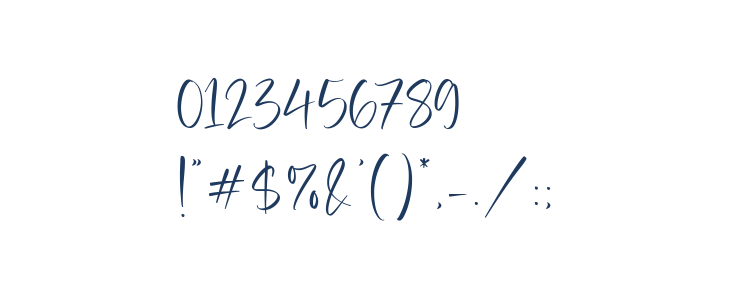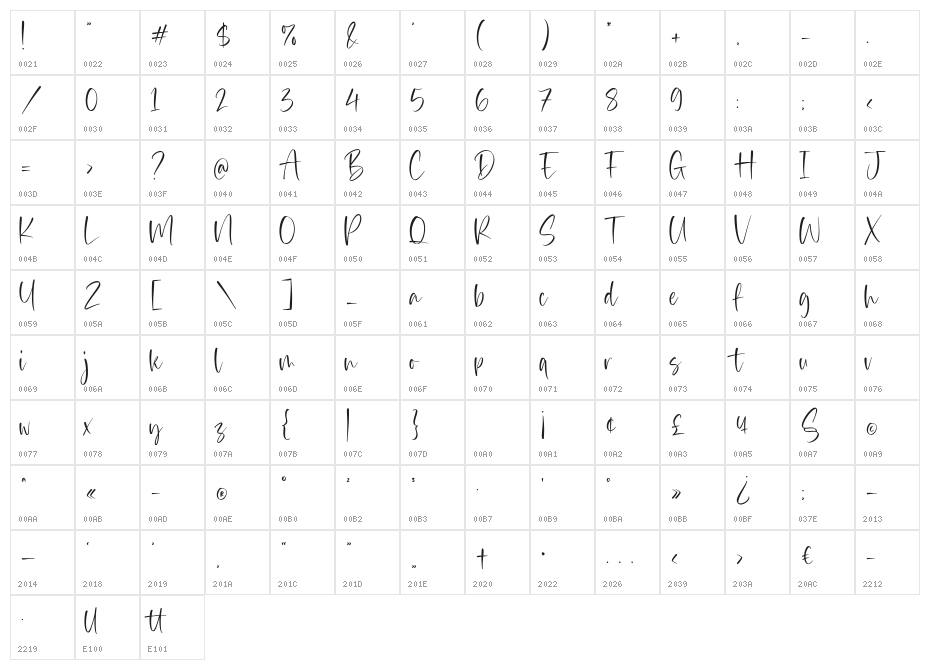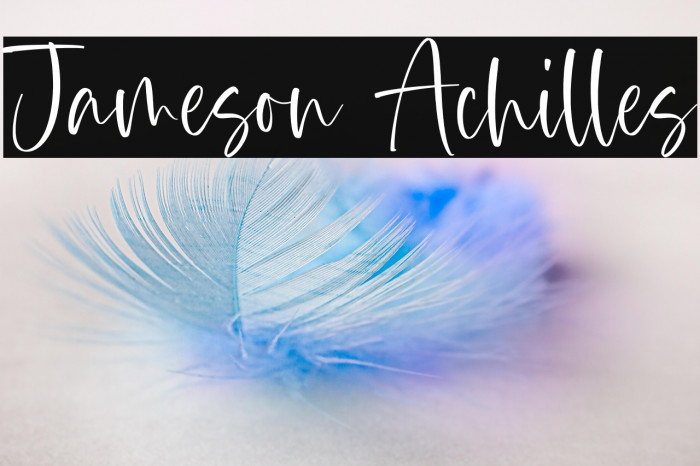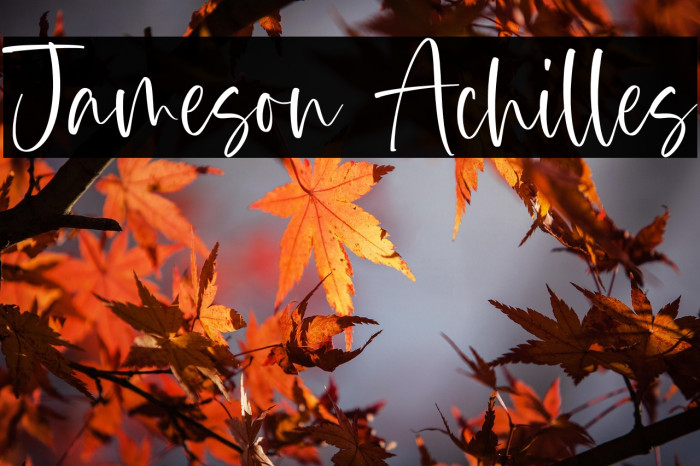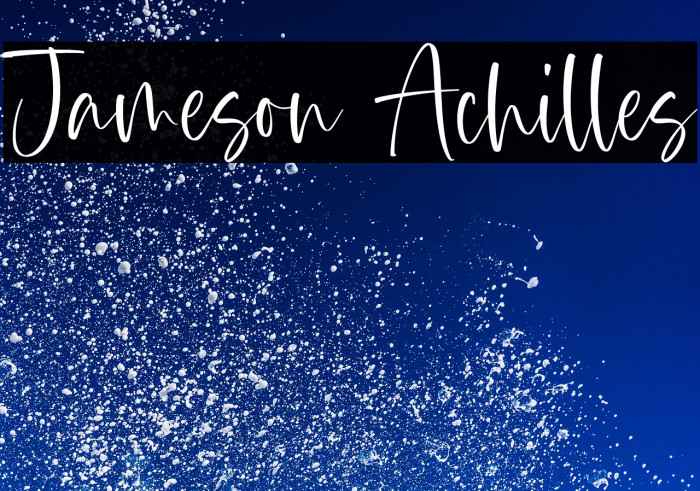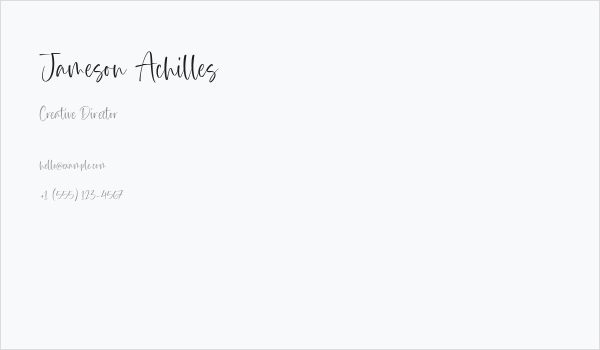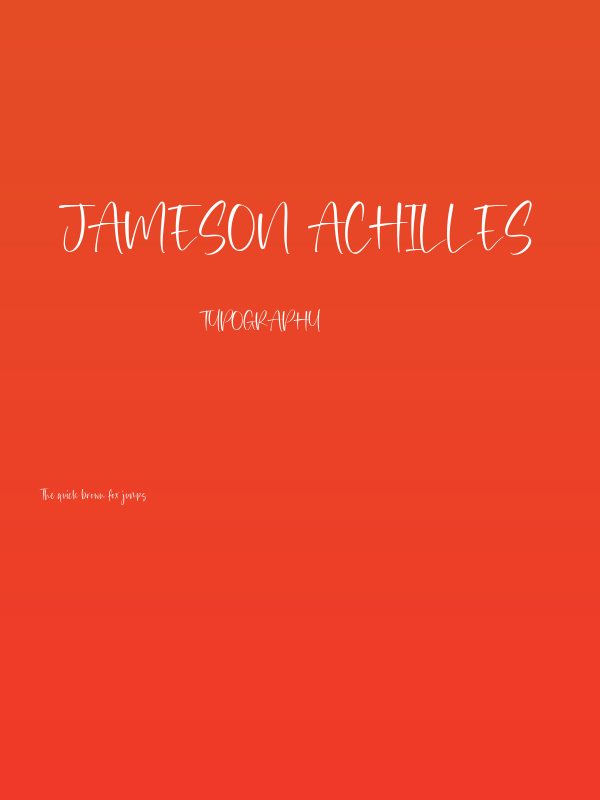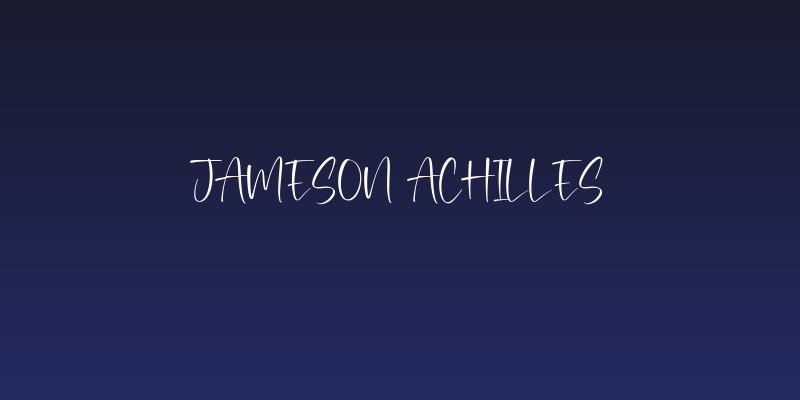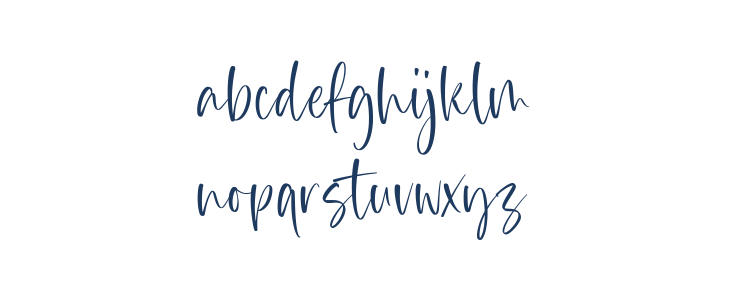
Jameson Achilles Font
Jameson Achilles Description
This font features a lively and expressive handwritten style, characterized by its fluid and dynamic strokes. The uppercase letters are tall and slightly narrow, with a playful yet elegant flair. The lowercase letters maintain a consistent flow, enhancing the font's natural and organic appearance. Numbers are crafted with the same attention to detail, ensuring readability while maintaining the font's unique personality. Special characters are thoughtfully designed to complement the overall aesthetic, making this font versatile for various creative applications.